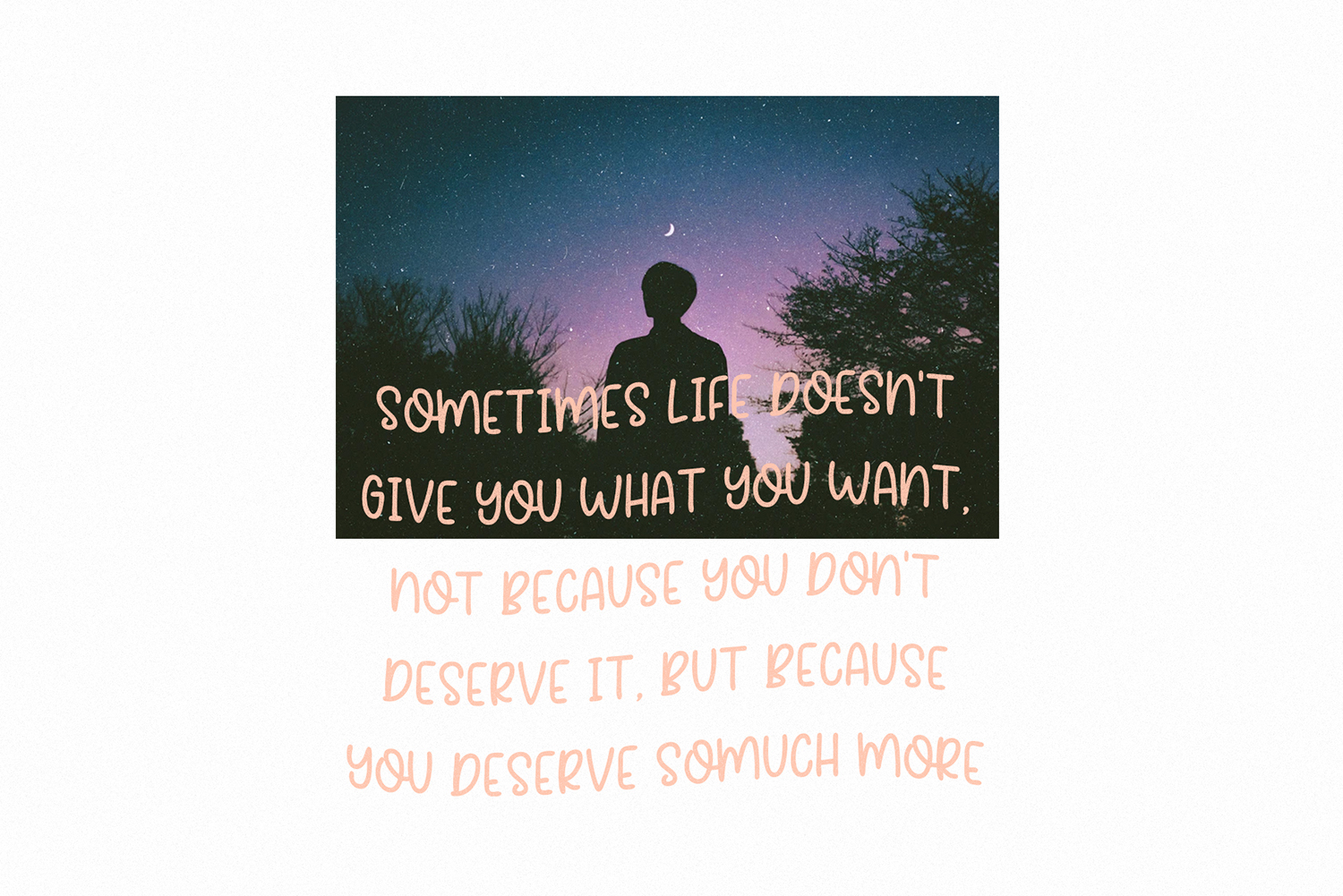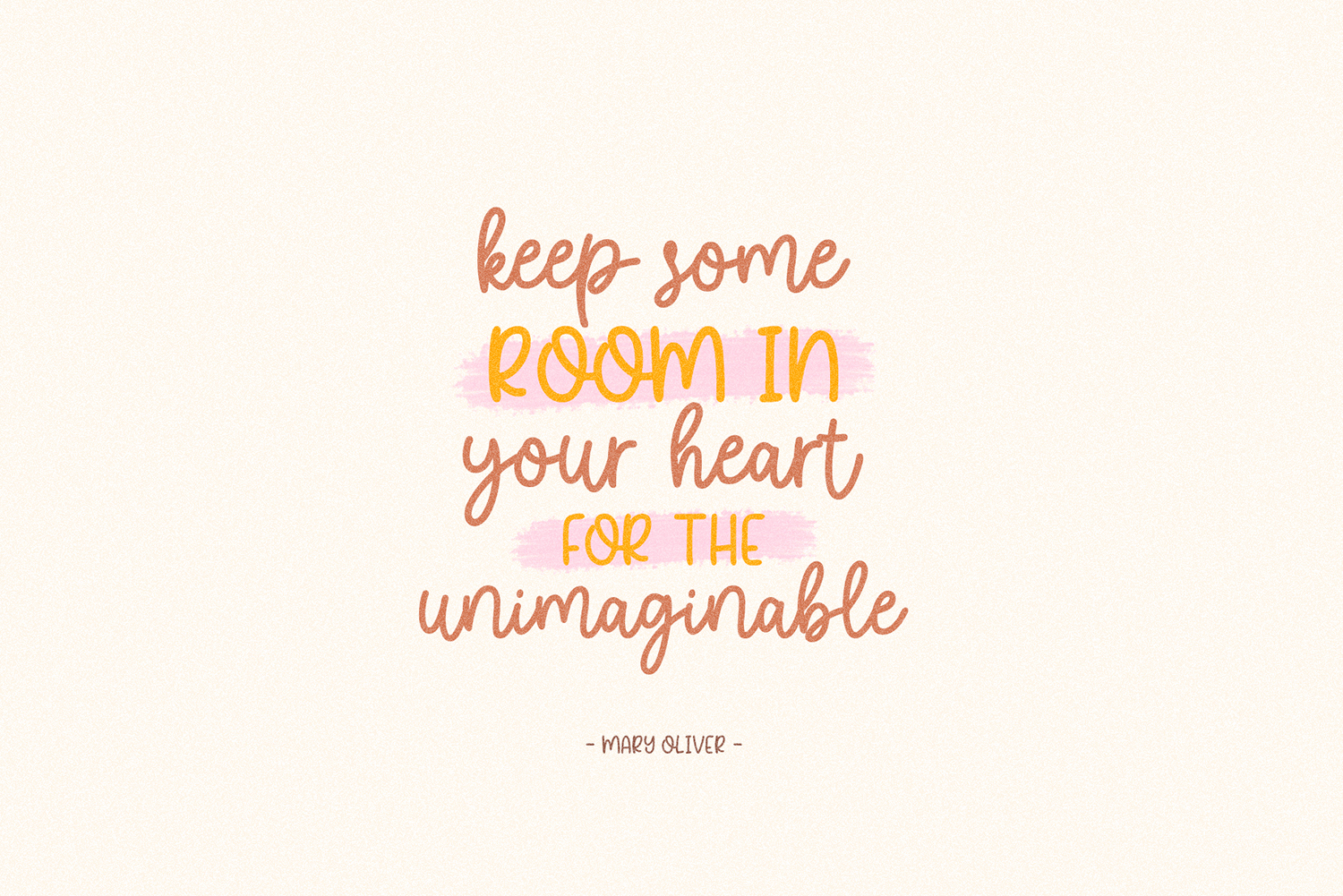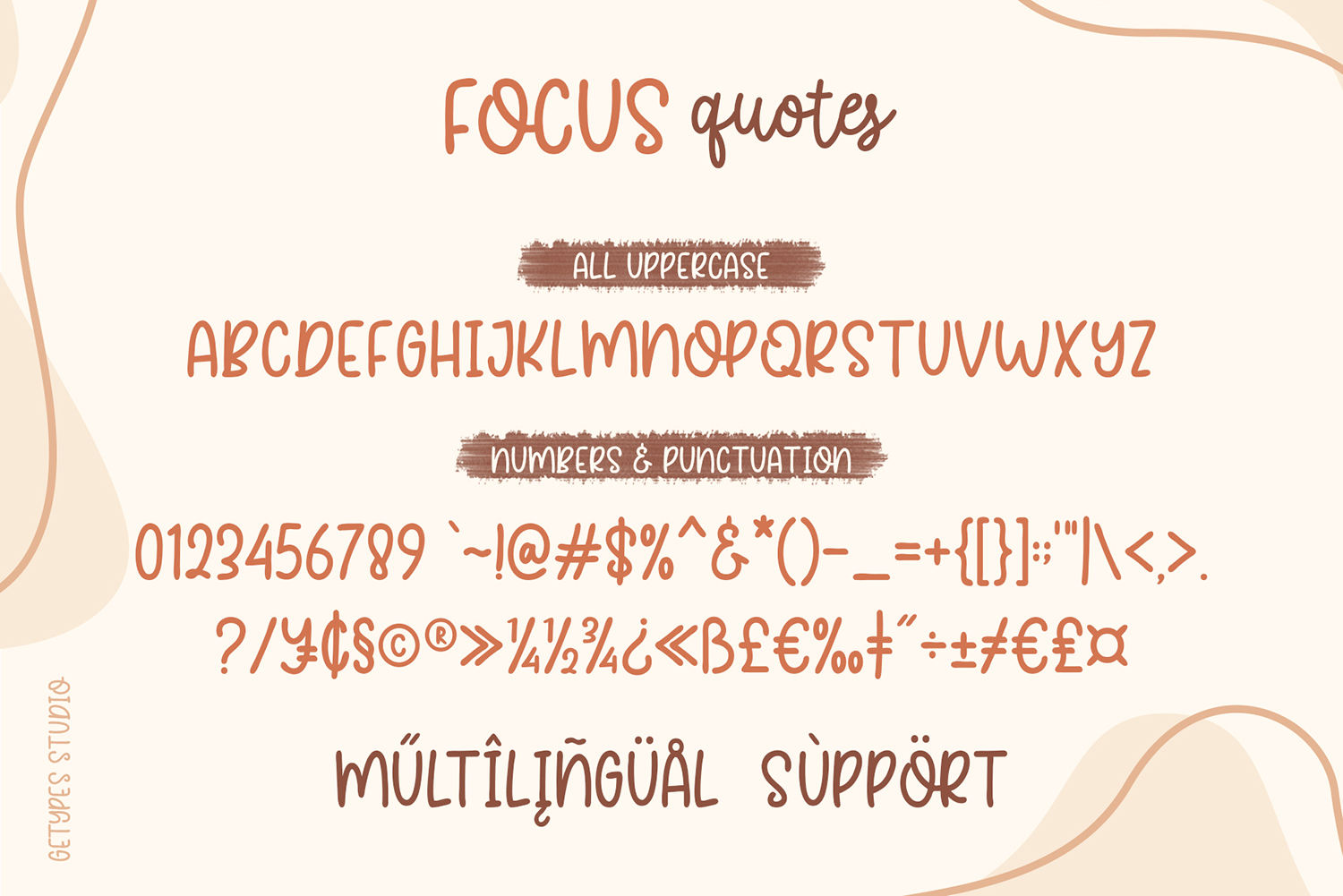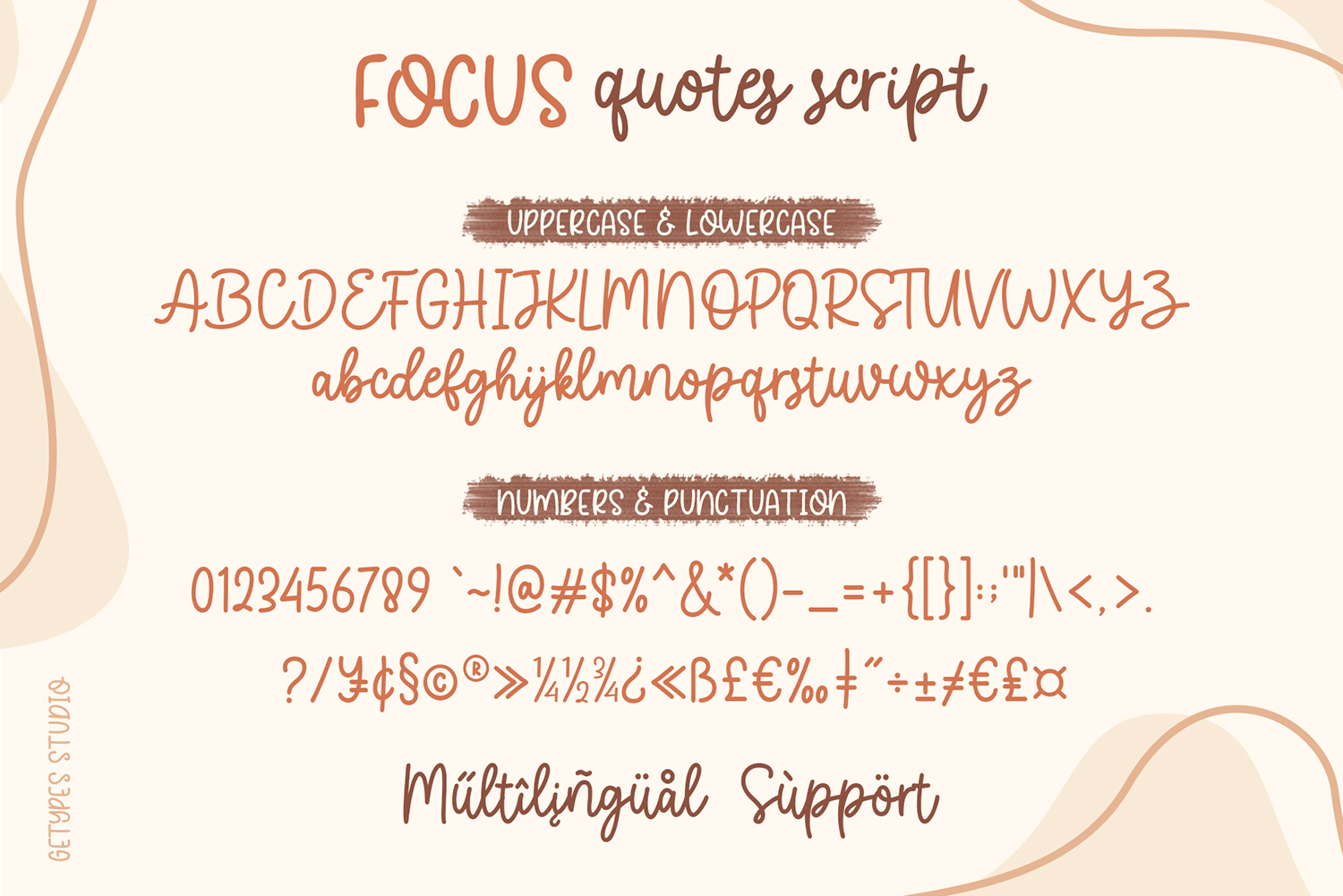
Focus Quotes Free Font
Focus Quotes Free Font is a fun duo font, perfect for creating quotes, craft, wedding, logos, or just adding a hand-written touch to any project. This free typeface was designed by talented Getypes Studio. If you like it don’t forget to check out the full version.